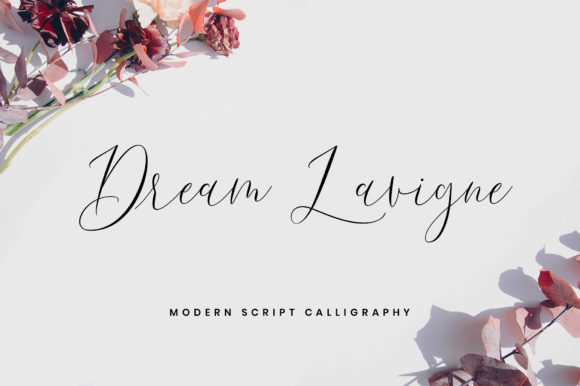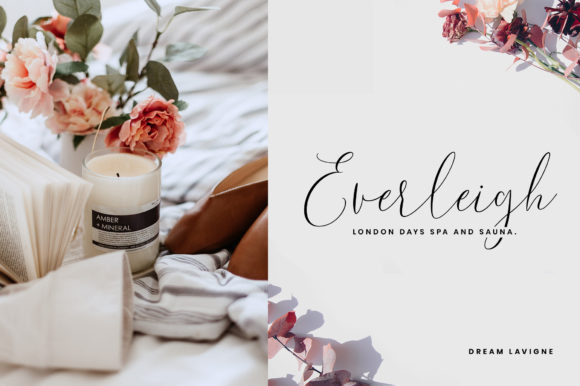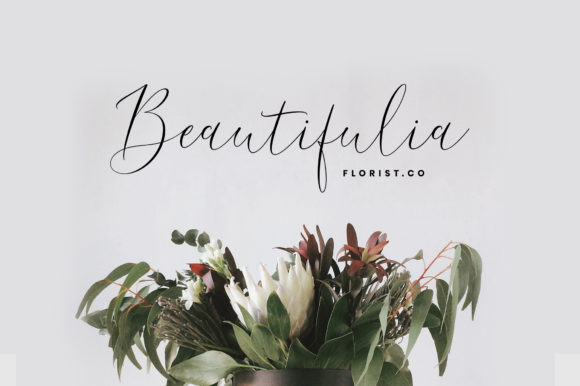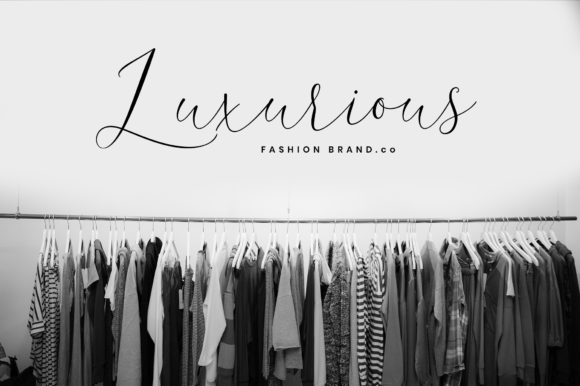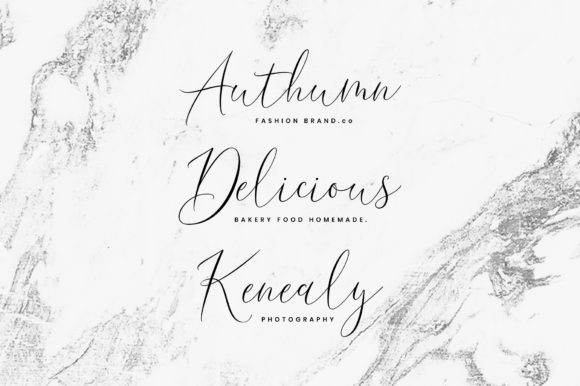
Dream Lavigne Font
About Dream Lavigne Font
Dream Lavigne is a magical handwritten font carefully created with a touch of elegance. This font is the perfect fit for making original and outstanding designs.